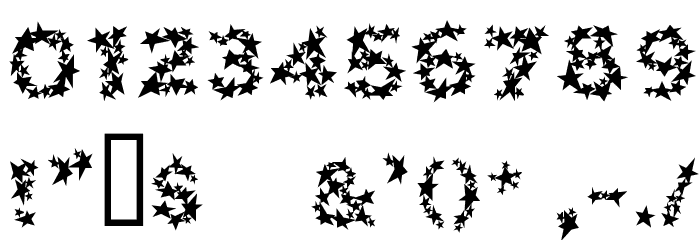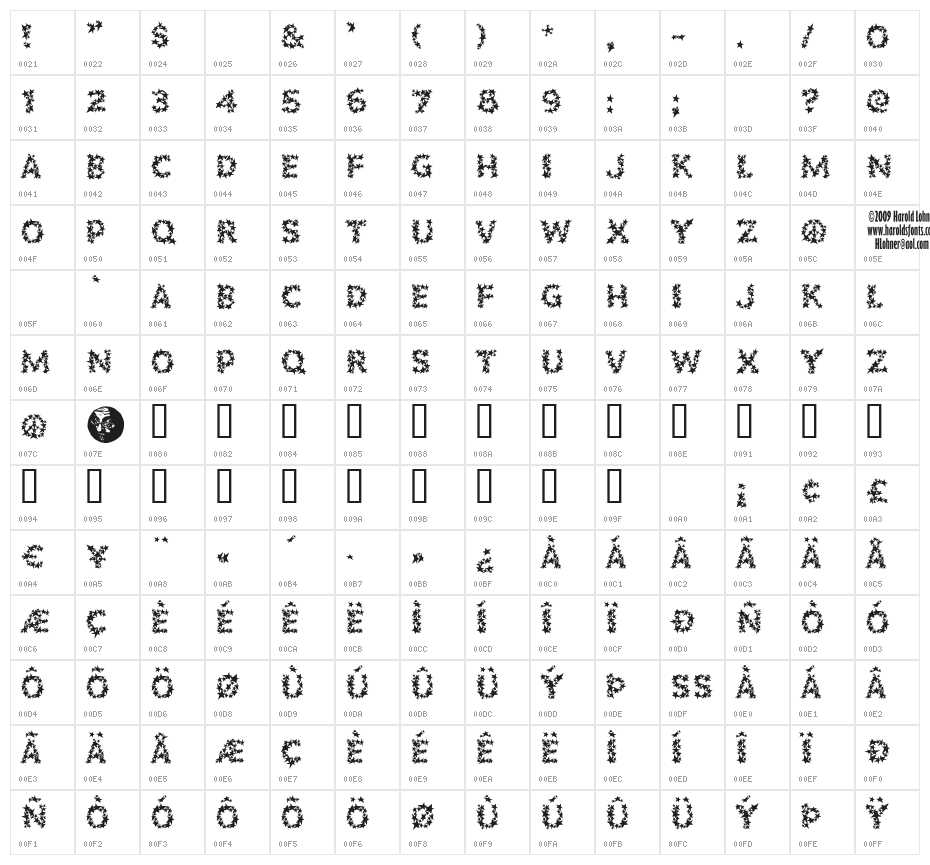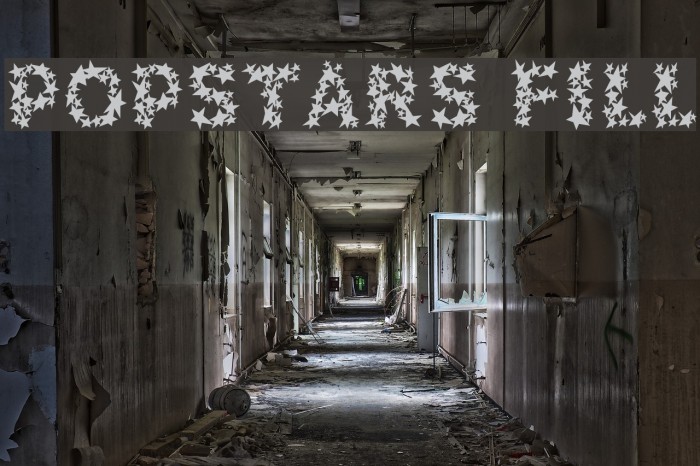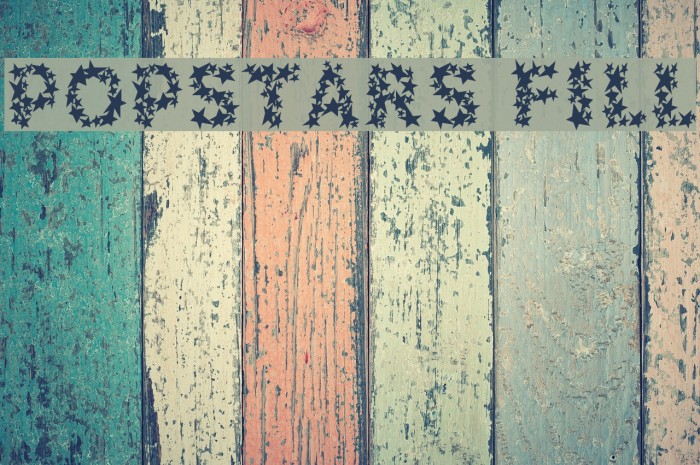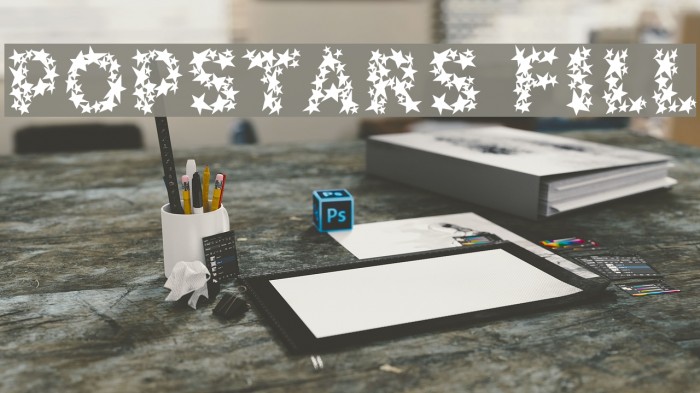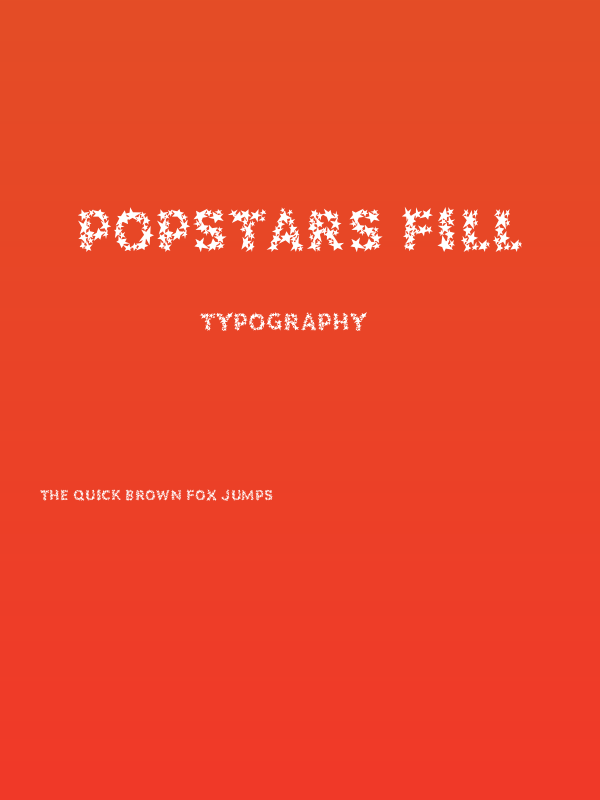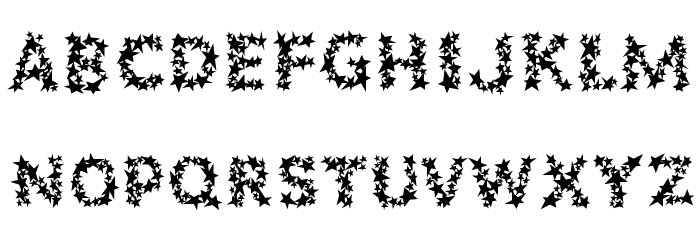
Popstars Fill Font
Popstars Fill Description
This font features a playful and energetic design, with each character composed of numerous star shapes that create a bold and dynamic appearance. The stars vary in size, giving the font a textured and lively look. This unique style captures attention and conveys a sense of fun and creativity. The characters are well-defined, maintaining readability despite the intricate design. The font is suitable for projects that aim to stand out and make a statement, particularly in contexts where a whimsical or celebratory tone is desired.